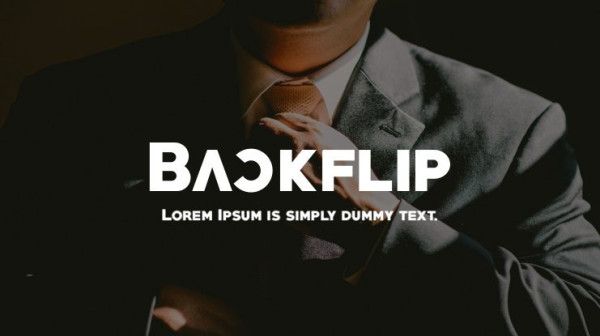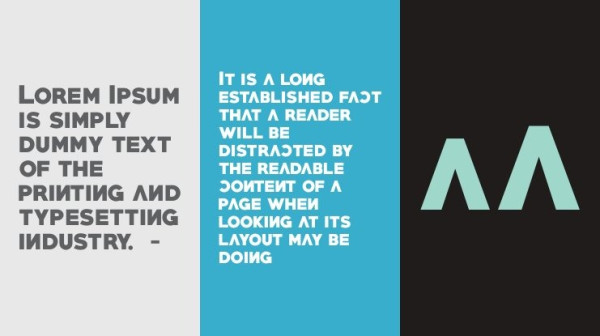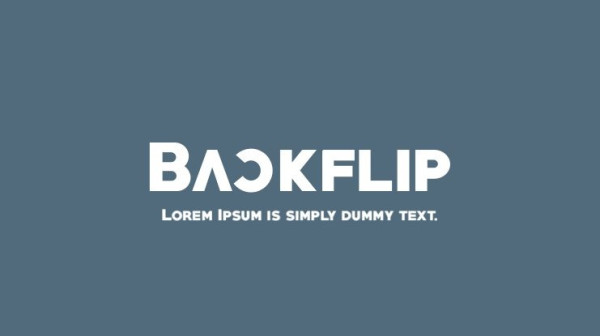
Backflip Font, is a sans serif stunning when combined or separately. This sans serif font style is legible and stunningly designed.
| Classification: | Sans Serif Fonts, Style / Aesthetic Fonts |